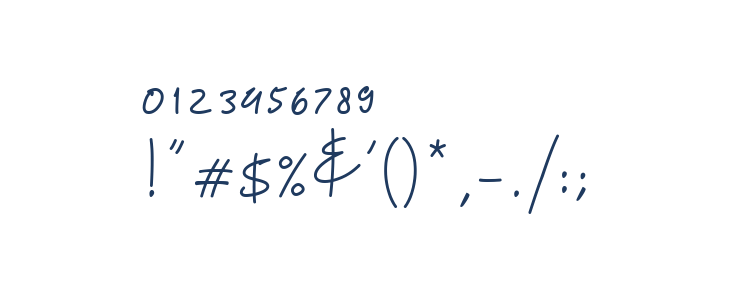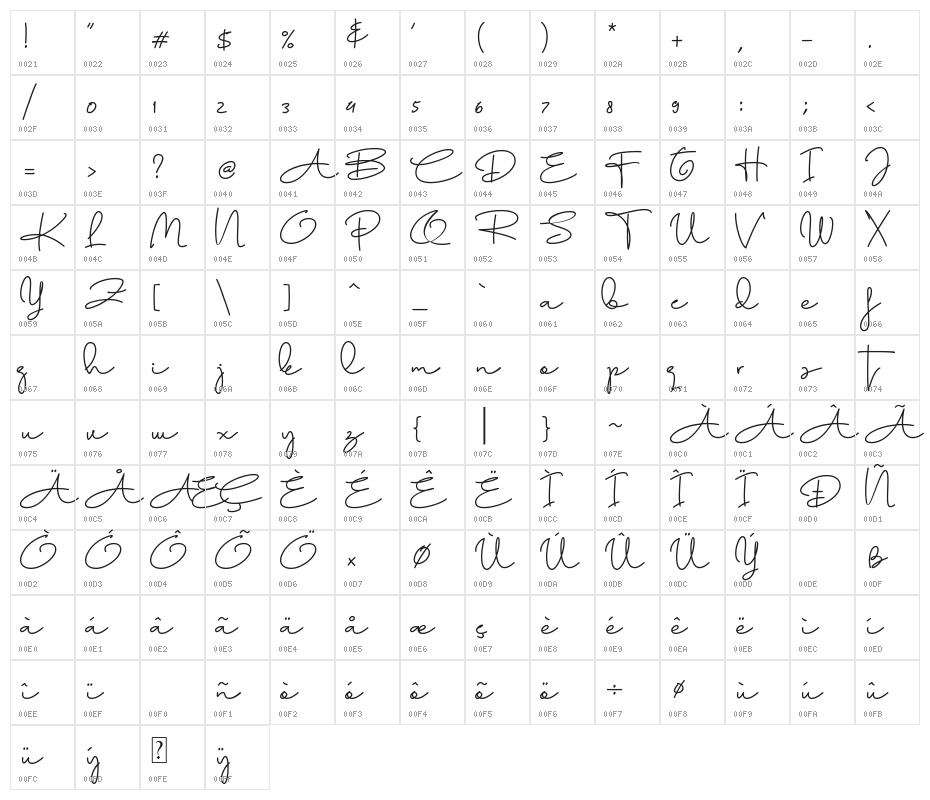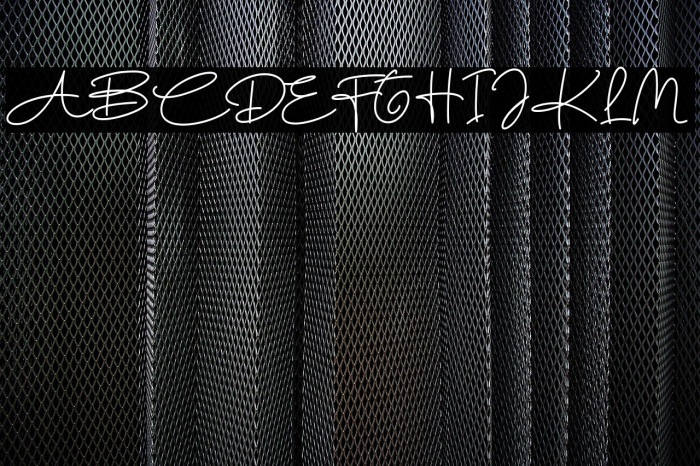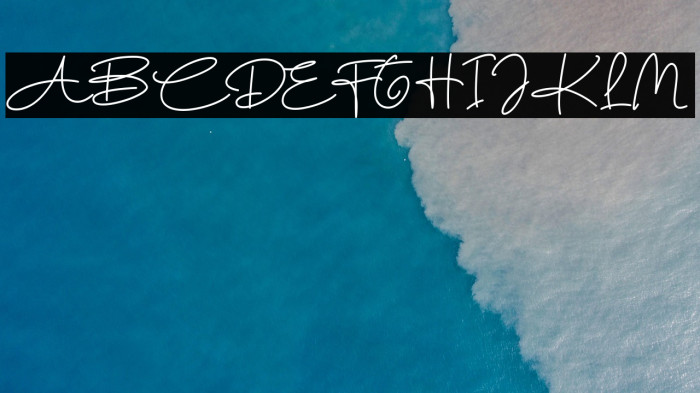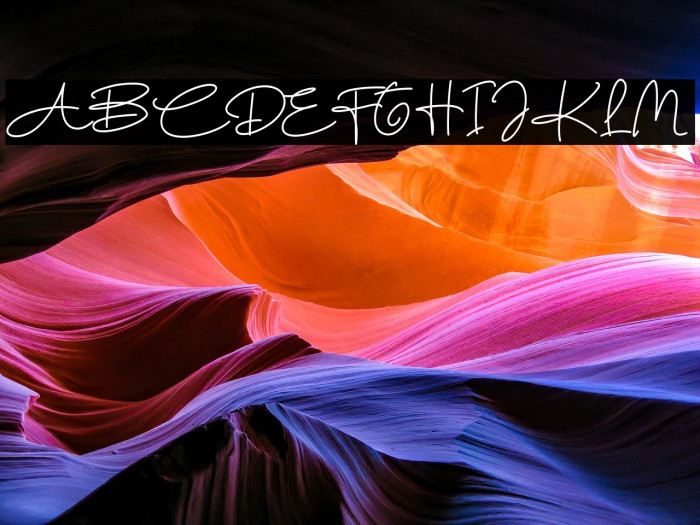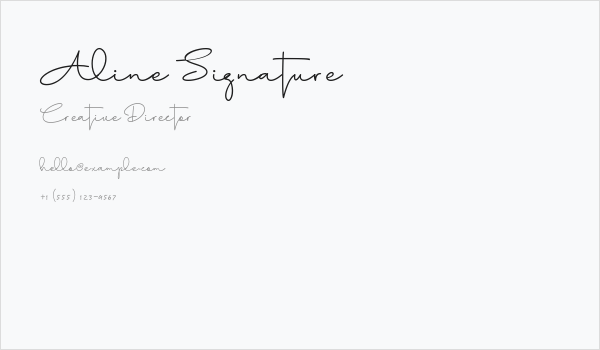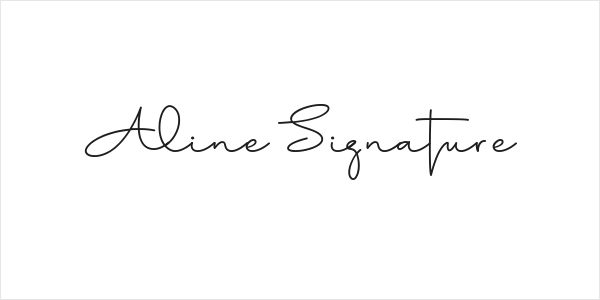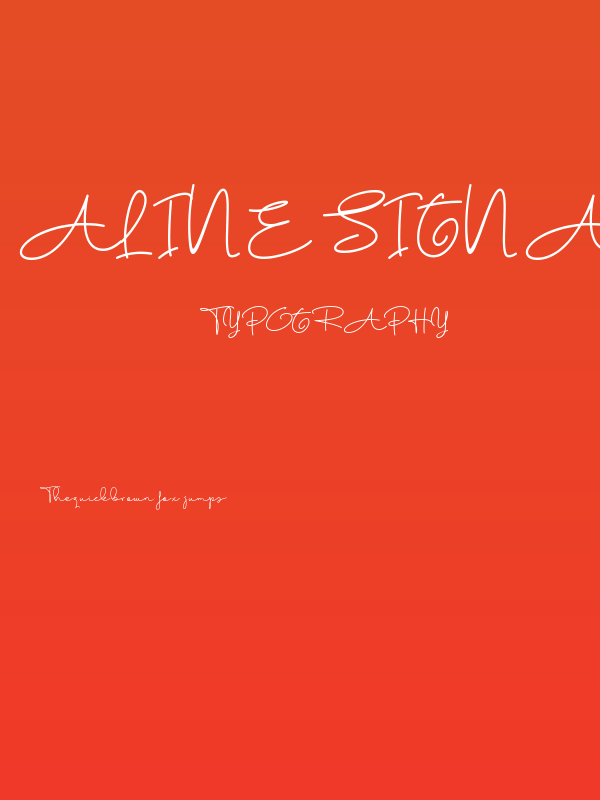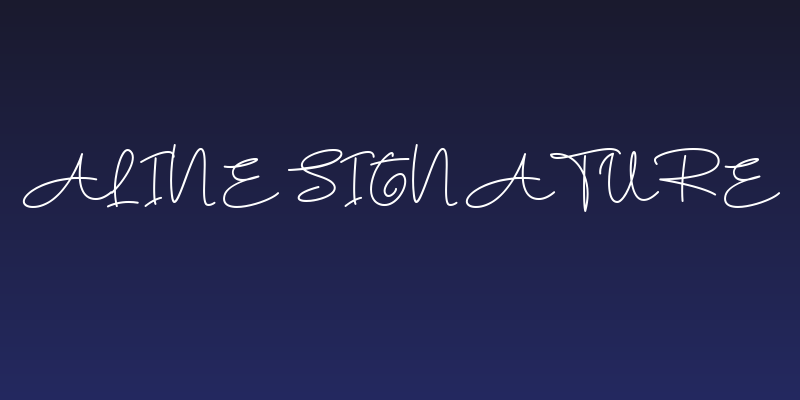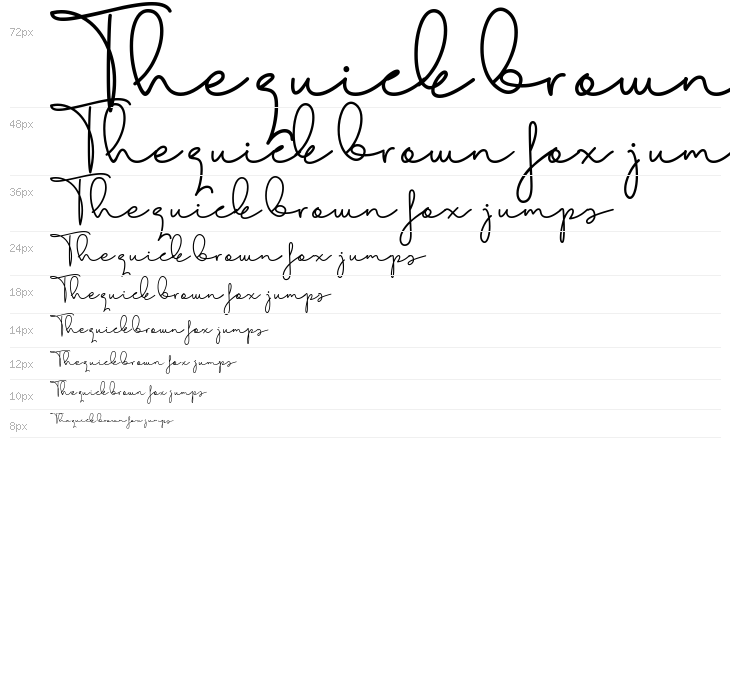
Aline Signature Font
Aline Signature Description
This font exudes a casual elegance with its flowing, cursive style. The letters are interconnected, creating a seamless and continuous script that mimics natural handwriting. The uppercase letters are slightly more structured, providing a nice contrast to the more fluid lowercase characters. The numbers and special characters maintain the same handwritten aesthetic, ensuring consistency throughout. The overall appearance is both sophisticated and approachable, making it suitable for a variety of design projects that require a personal touch.
| Proposed Projects | Ideal for wedding invitations, personal branding, greeting cards, and any project that requires a personal, elegant touch. |